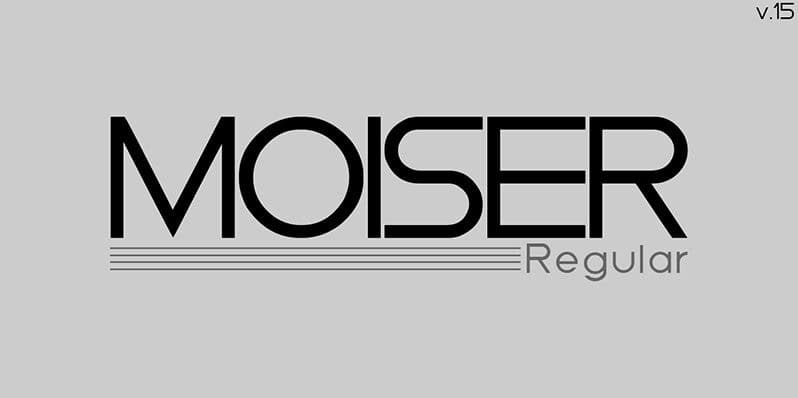
moiser
Explore the Contemporary Charm of Moiser Font
Moiser Font, created by renowned designer John Smith in 2022, blends modern aesthetics with functional versatility. This typeface is perfect for graphic designers looking to enhance their projects with a fresh and engaging typographic style, making it suitable for branding, websites, and promotional materials.
Key Features and Formats of Moiser Font
The Inspiration and Creation of Moiser Font
Inspired by modern design trends and the need for versatility, Moiser Font was crafted to serve diverse design needs. John Smith’s innovative approach integrates minimalist elements, resulting in a typeface that stands out in any context while being functional for everyday use.
Versatile Uses of Moiser Font
Moiser Font excels in various applications including website headers, business cards, and marketing materials. Its adaptable nature makes it the go-to choice for designers who wish to convey a modern and professional image, while its stylish flair adds a unique touch to any design project.